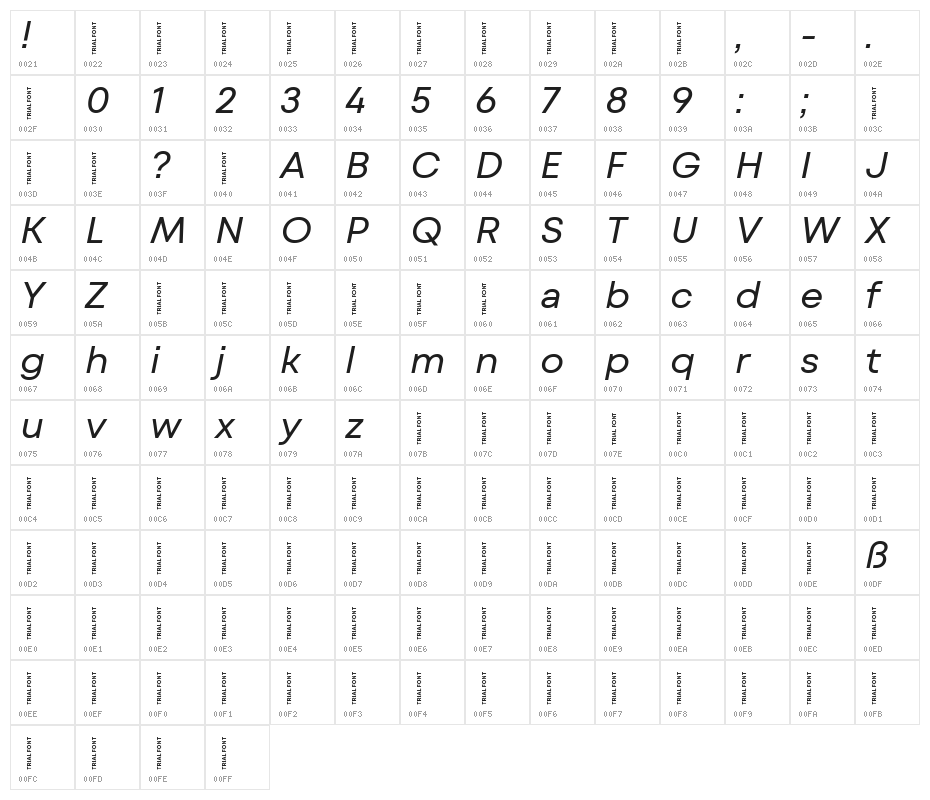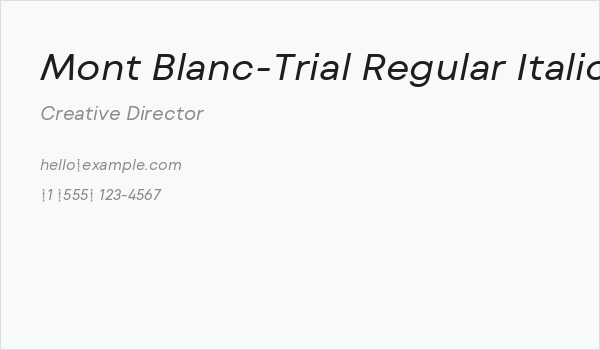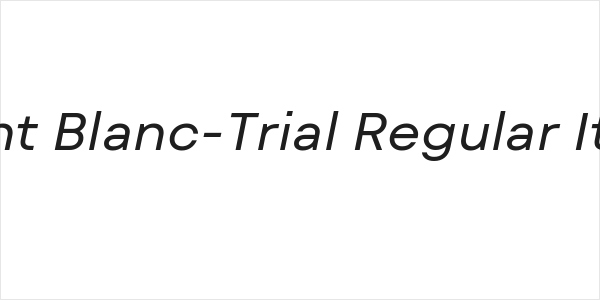
Mont Blanc-Trial Regular Italic Font
Mont Blanc-Trial Regular Italic Description
This font features a sleek and modern design with a slight italic slant, giving it a dynamic and forward-moving appearance. The characters are clean and well-defined, with consistent stroke widths that provide a harmonious and balanced look. The uppercase and lowercase letters maintain a uniform style, ensuring readability and elegance. The numerals are clear and distinct, making them suitable for various applications. Special characters are included, enhancing the font's versatility. Overall, this font exudes a contemporary and professional vibe, making it ideal for modern design projects.